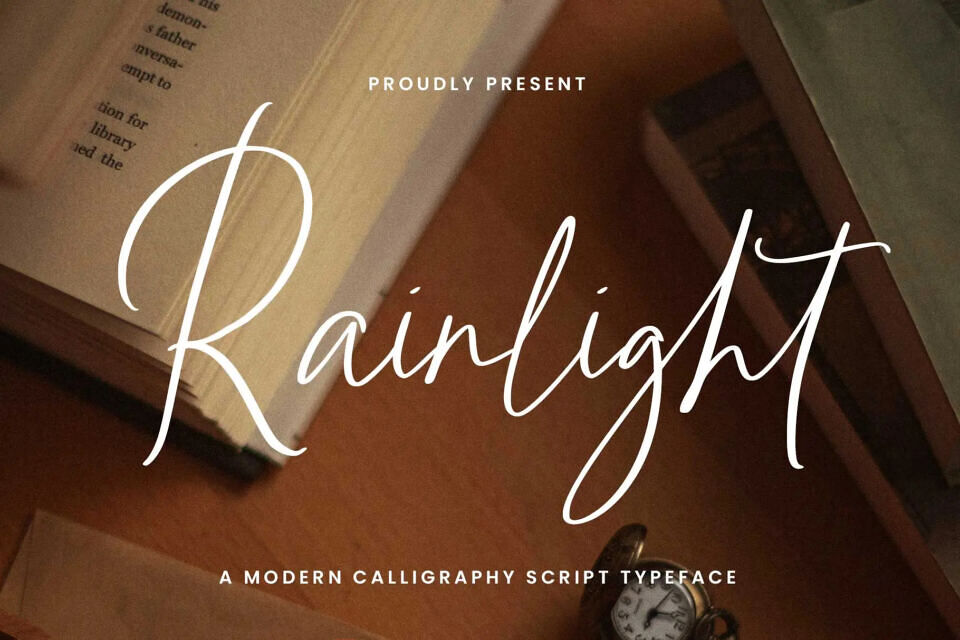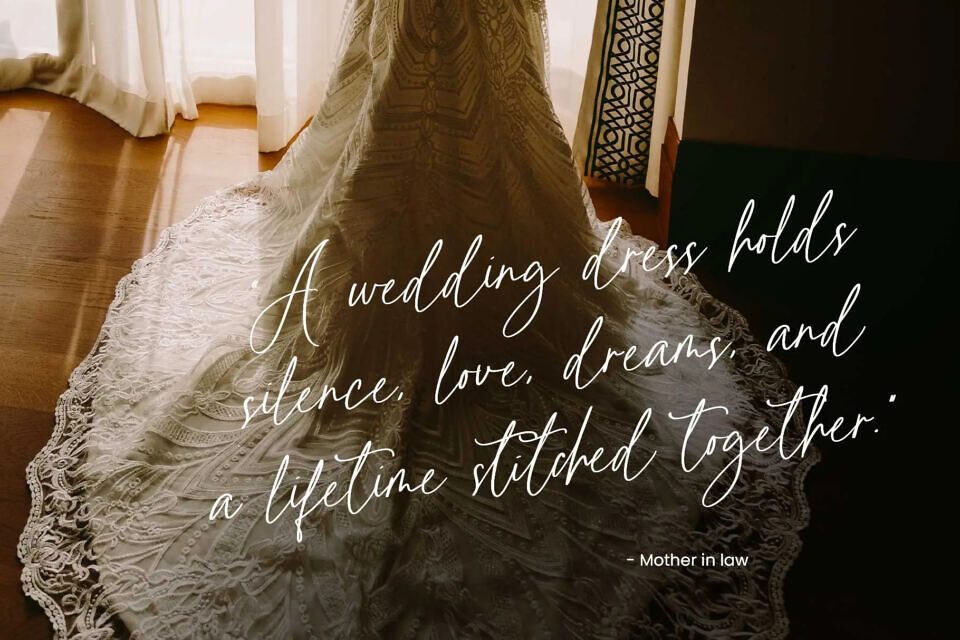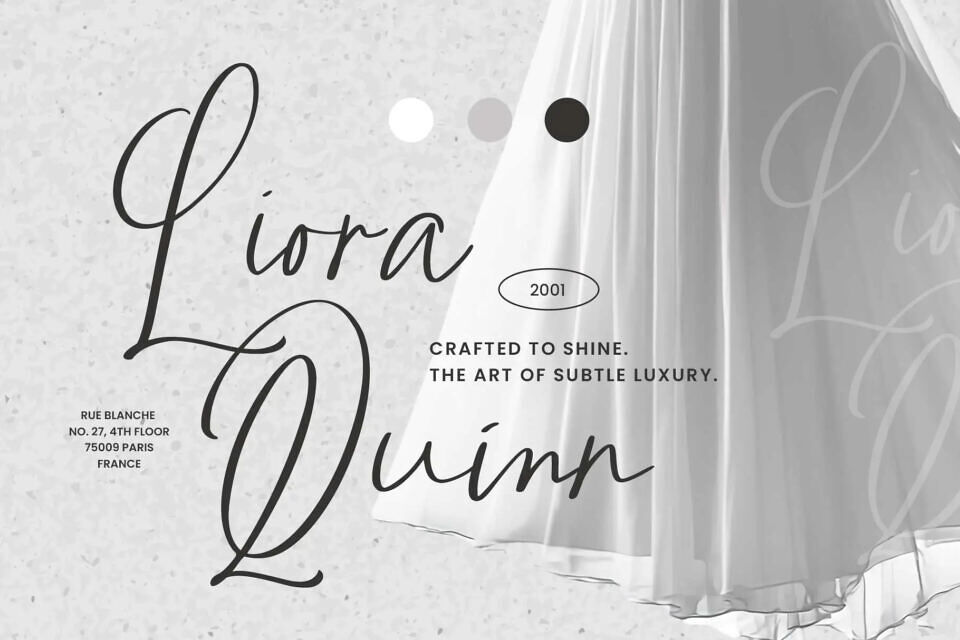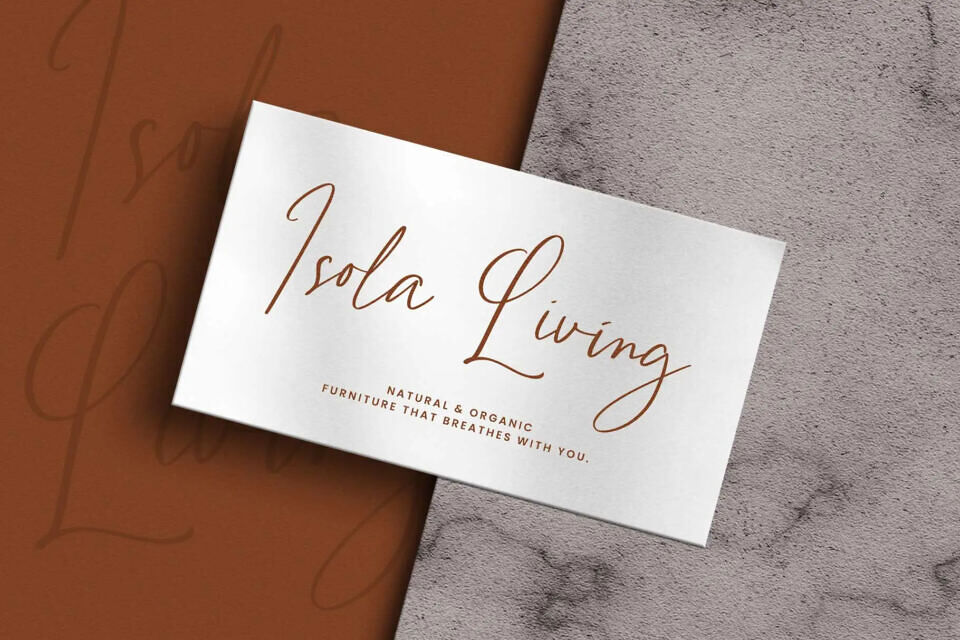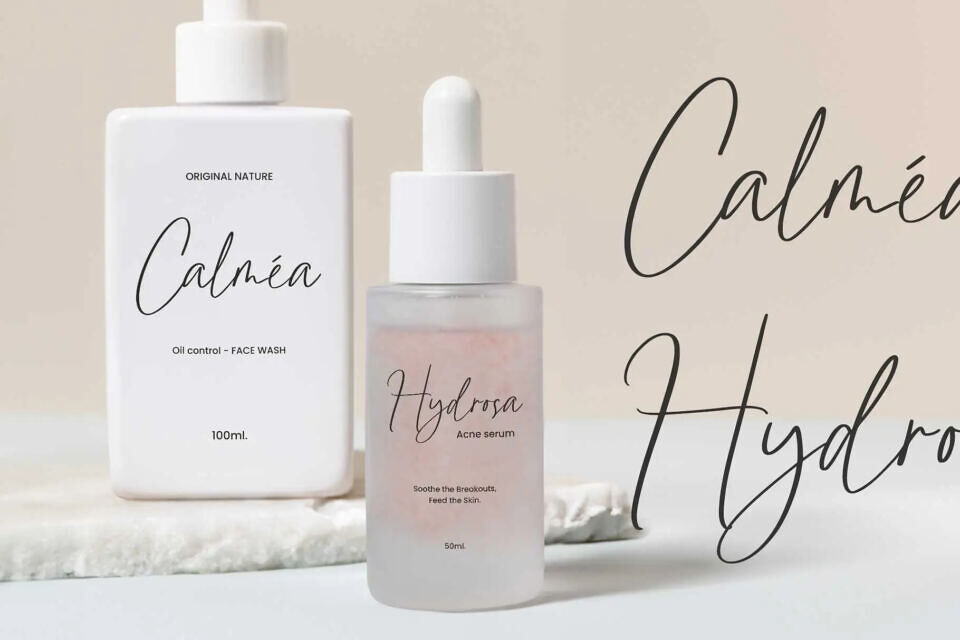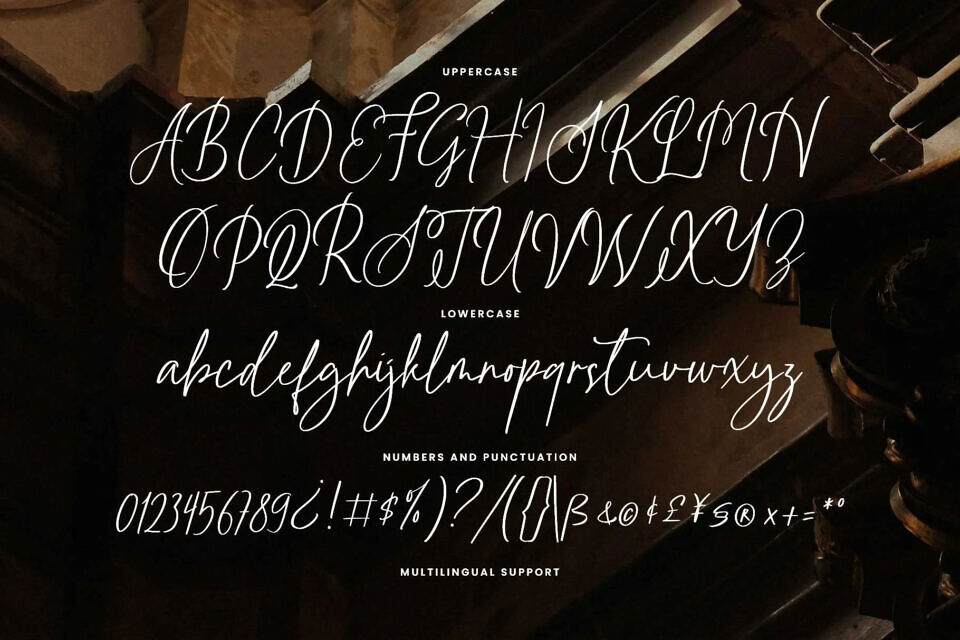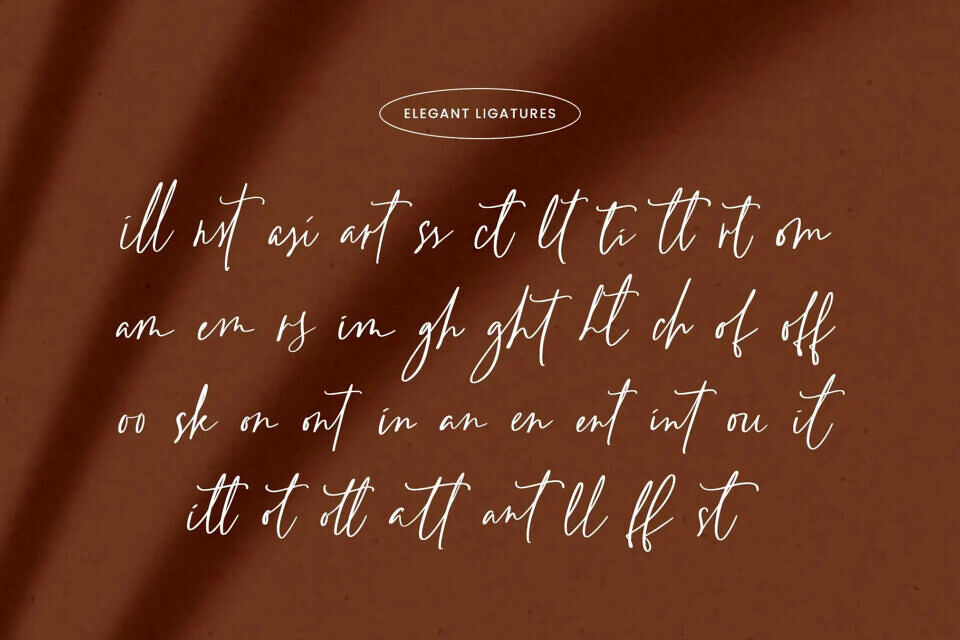
Rainlight is an elegant handwritten script font, designed with smooth strokes and lively, natural letterforms that convey a chic, romantic, and personal touch. Perfect for wedding invitations, greeting cards, logos, branding, social media graphics, websites, labels, and signatures, this versatile script enhances any design with warmth and sophistication.
Featuring an extensive set of special characters and stylistic alternates, Rainlight allows designers to explore multiple typographic variations, ensuring creativity and flexibility across digital and print projects. Ideal for projects that require a stylish, heartfelt, and contemporary handwritten aesthetic.